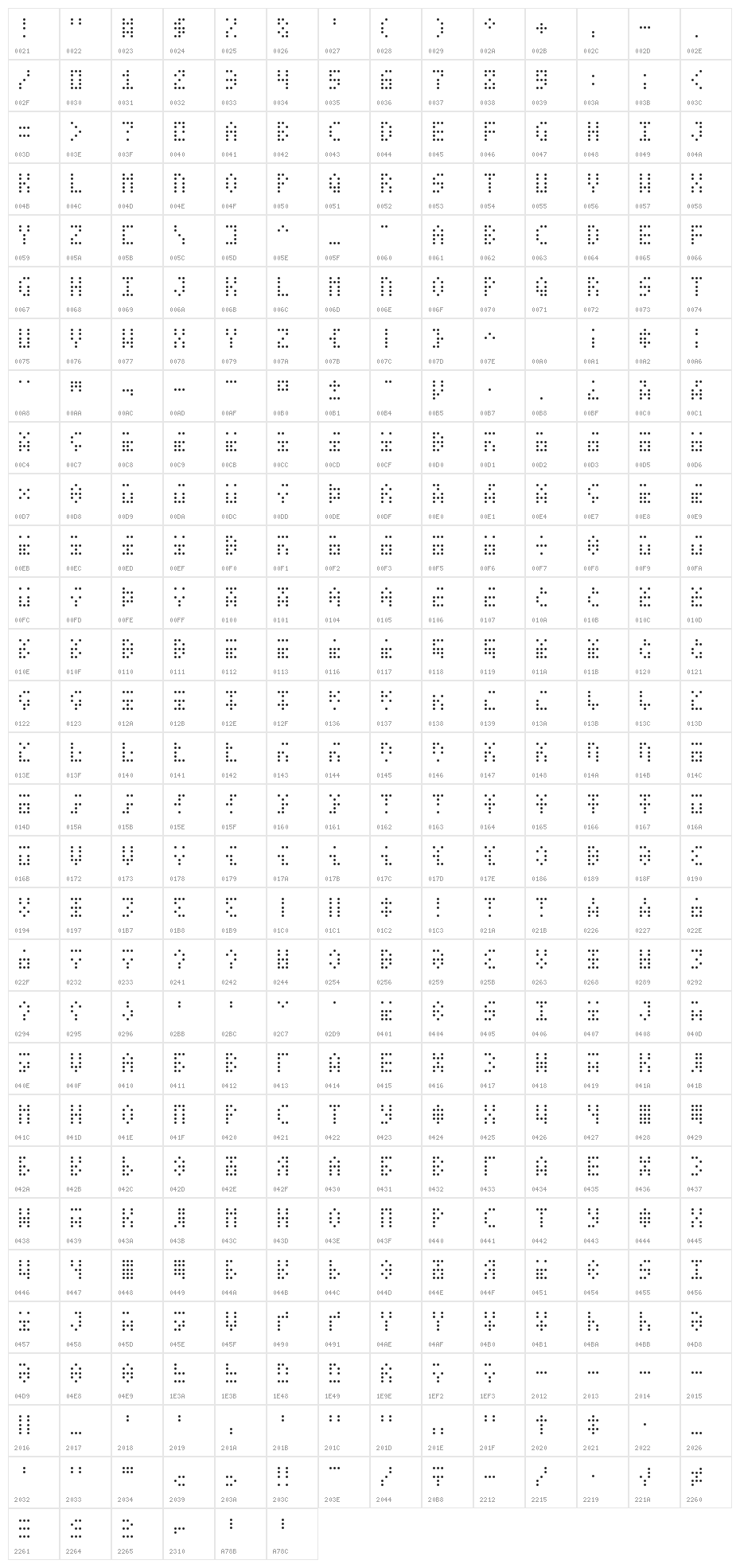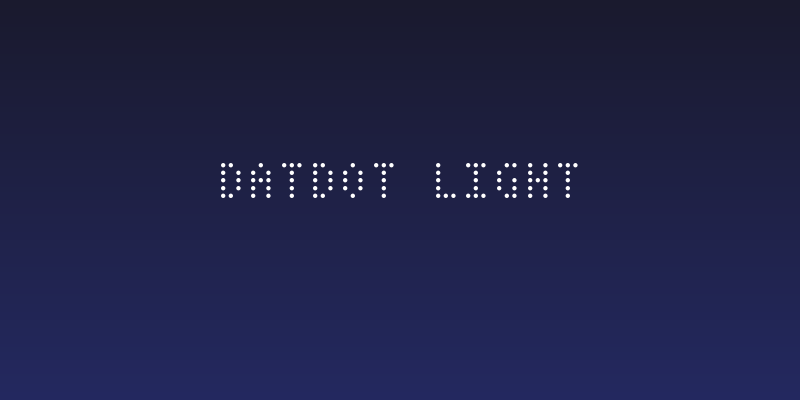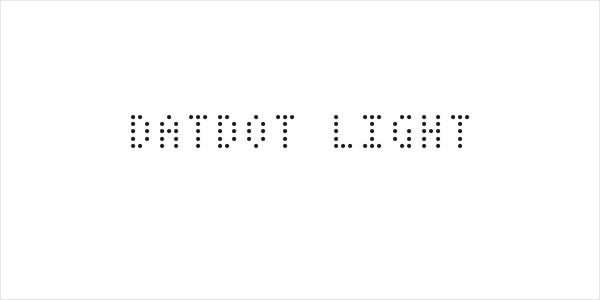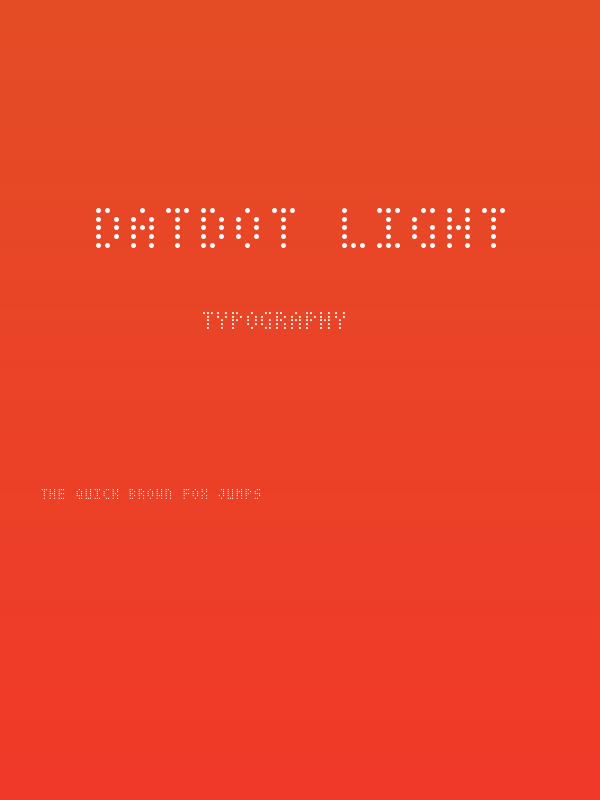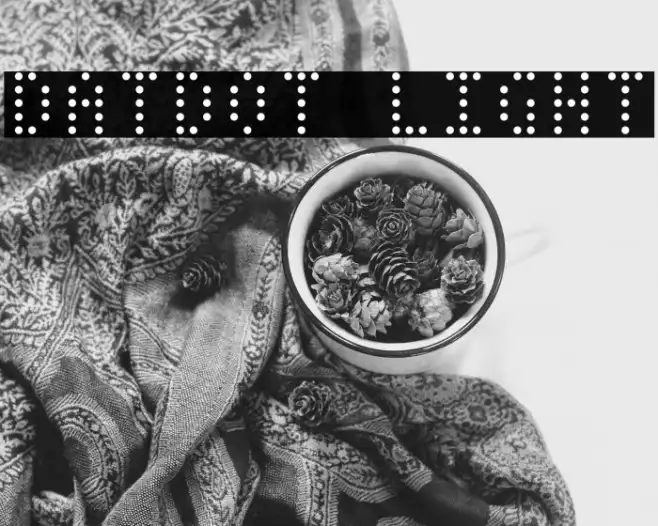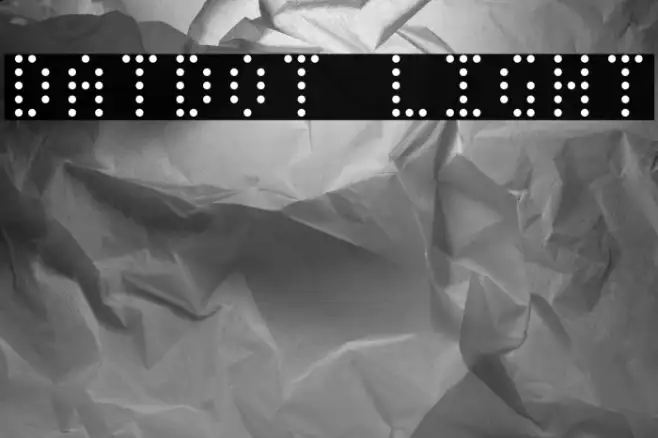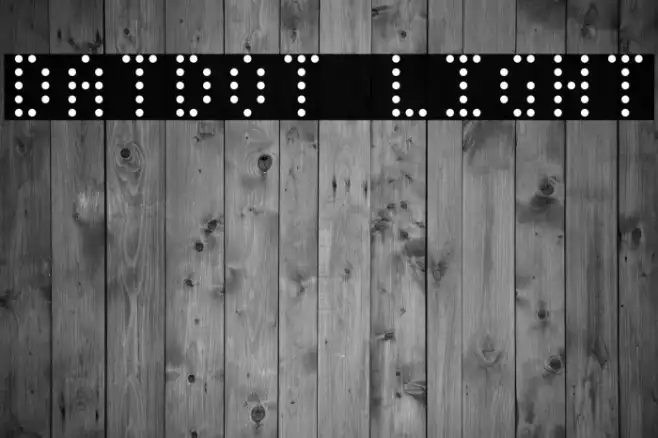
DatDot Light Font
DatDot Light Description
This font is a unique and creative design composed entirely of dots arranged to form each character. The letters and numbers are constructed with a consistent grid of dots, giving it a digital and modern appearance. The uniformity in the dot size and spacing creates a cohesive look, while the rounded nature of the dots adds a playful and approachable feel. This font is highly legible despite its unconventional style, making it suitable for various design applications where a futuristic or tech-inspired aesthetic is desired.
| Proposed Projects | Ideal for digital art, tech branding, futuristic posters, and creative projects requiring a modern and unique typeface. |